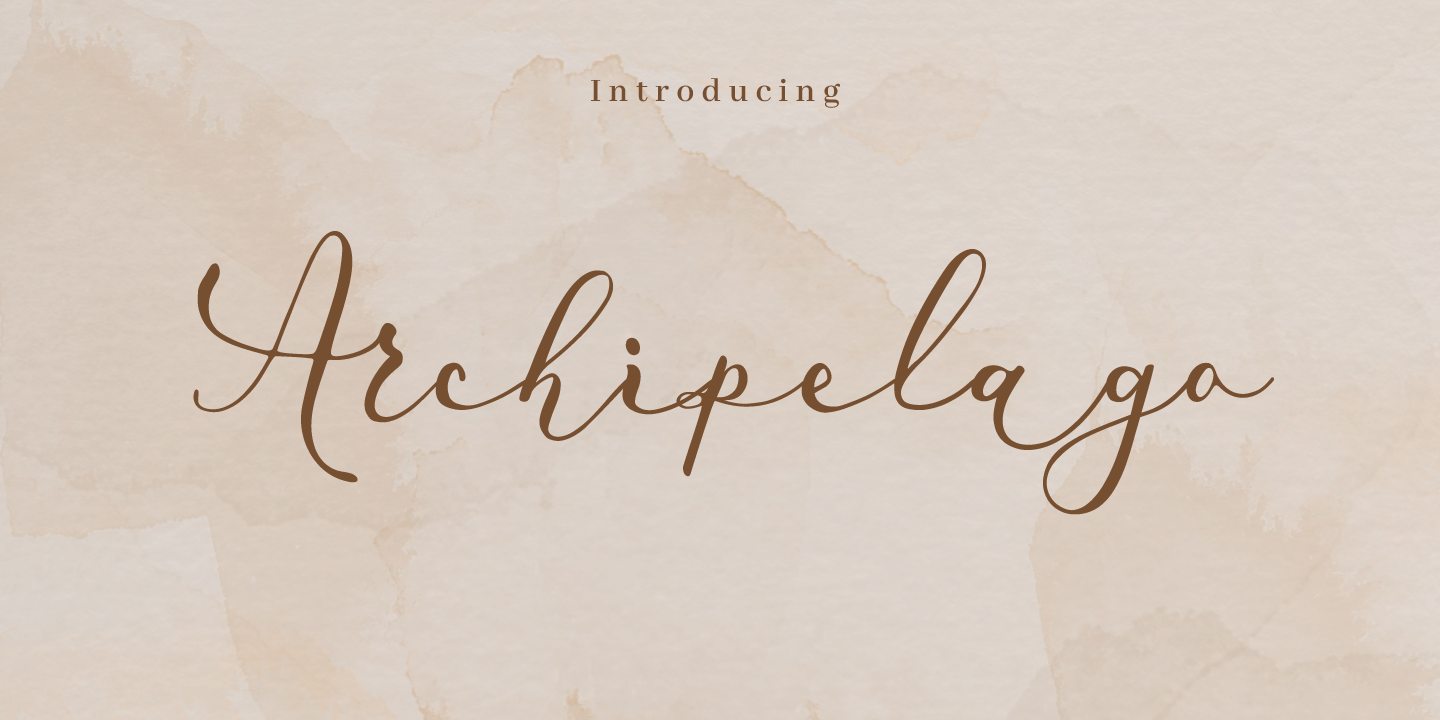
Archipelago International Font is perfect for luxury resort branding, tropical tourism promotions, international travel agencies, exotic destination marketing, cruise line advertisements, island retreat communications, maritime industry materials, global hospitality networks, beach resort signage, and premium vacation rental platforms. This sophisticated typeface brings worldly elegance and tropical sophistication to any design project celebrating international travel and island paradise experiences.
Archipelago International Font is exciting because it captures the essence of scattered tropical islands and global connectivity through its refined letterforms that suggest both exotic escape and international sophistication. The font's cosmopolitan character and island-inspired elegance evoke luxury travel experiences and cross-cultural connections, making it perfect for brands targeting affluent travelers seeking exclusive island destinations and premium hospitality services.
Archipelago International Font family includes multiple weights and styles: Regular, Bold, Light, Medium, Black, Italic, Condensed, Extended, Tropical, and Resort variants. Each style maintains the distinctive international character while providing comprehensive options for creating sophisticated travel branding and luxury hospitality communications that celebrate both exotic destinations and global accessibility across various tourism applications.
Whether you're designing for luxury resorts, international travel companies, or premium hospitality brands, Archipelago International Font Free Download delivers the sophisticated wanderlust that resonates with affluent travelers and luxury tourism markets. This distinguished typeface combines tropical paradise appeal with global sophistication, making it essential for projects requiring both exotic allure and international credibility. The font's worldly presence ensures memorable impact in luxury travel and hospitality contexts.